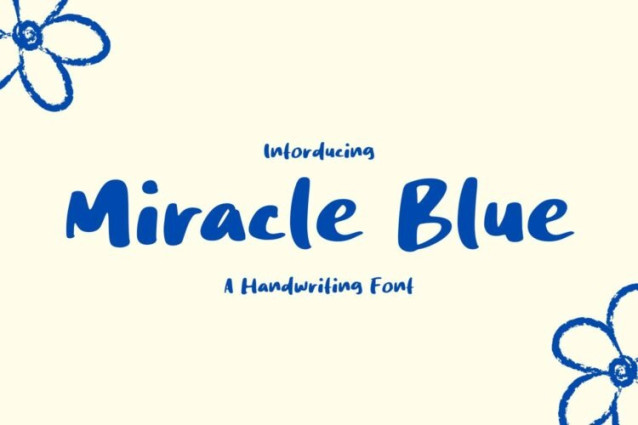
Miracle Blue Font
Miracle Blue Font is a simple and friendly handwritten font. Its natural and unique style makes it incredibly fitting to a large pool of designs. The only limit is your imagination!